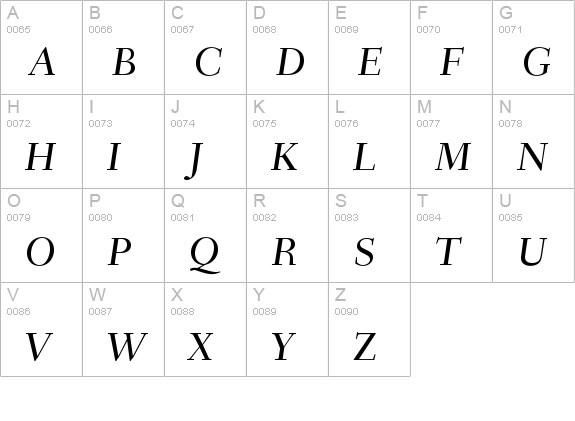
Fairfield LH 56 Medium Italic is a balanced, medium-weight, italic variant in the Fairfield typeface family \xE2\x80\x94 well suited to sub-headlines, navigation, and balanced editorial work.